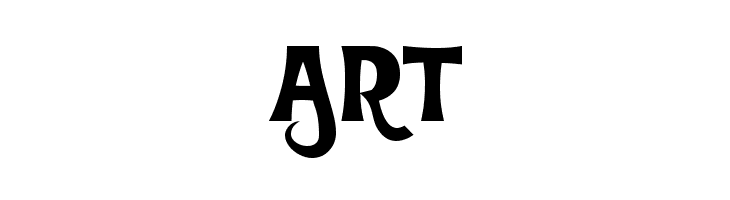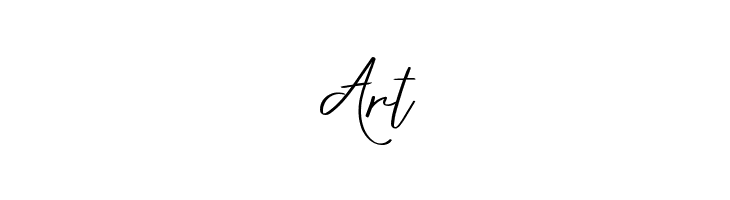
A lively, handwritten-style font with fluid, slightly irregular strokes.
A charming and fluid script font with elegant, flowing curves.
A bold, textured font with a vintage, handcrafted feel.
A cursive, elegant font with a flowing, handwritten style.
A decorative serif font with intricate details and a modern twist.
A playful, hand-drawn style font with rounded, irregular strokes.
A bold, geometric font with a futuristic and edgy design.
A bold, italicized font with a modern, futuristic style and strong geometric shapes.